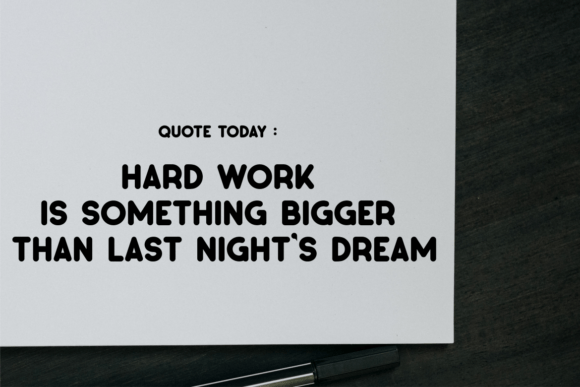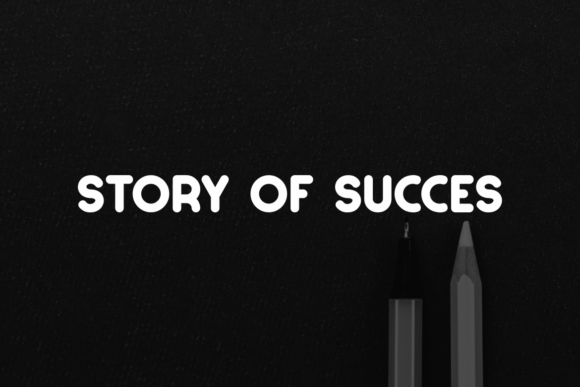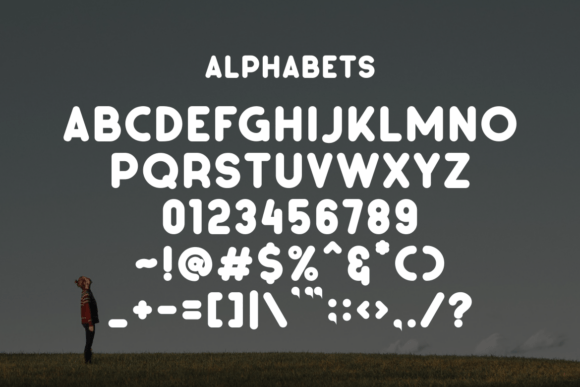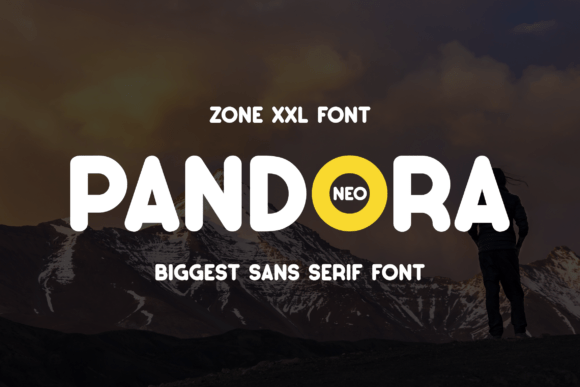
Introduction to Neo Pandora Font
Experience the uniqueness of Neo Pandora, a strikingly bold sans serif font ideal for head-turning design projects.
Its distinct β€œO” shape lends an unparalleled aesthetic, making sure your creations stand out and make an impact Enjoy the versatility and charm of Neo Pandora, a typography that’s as unique as your imagination.